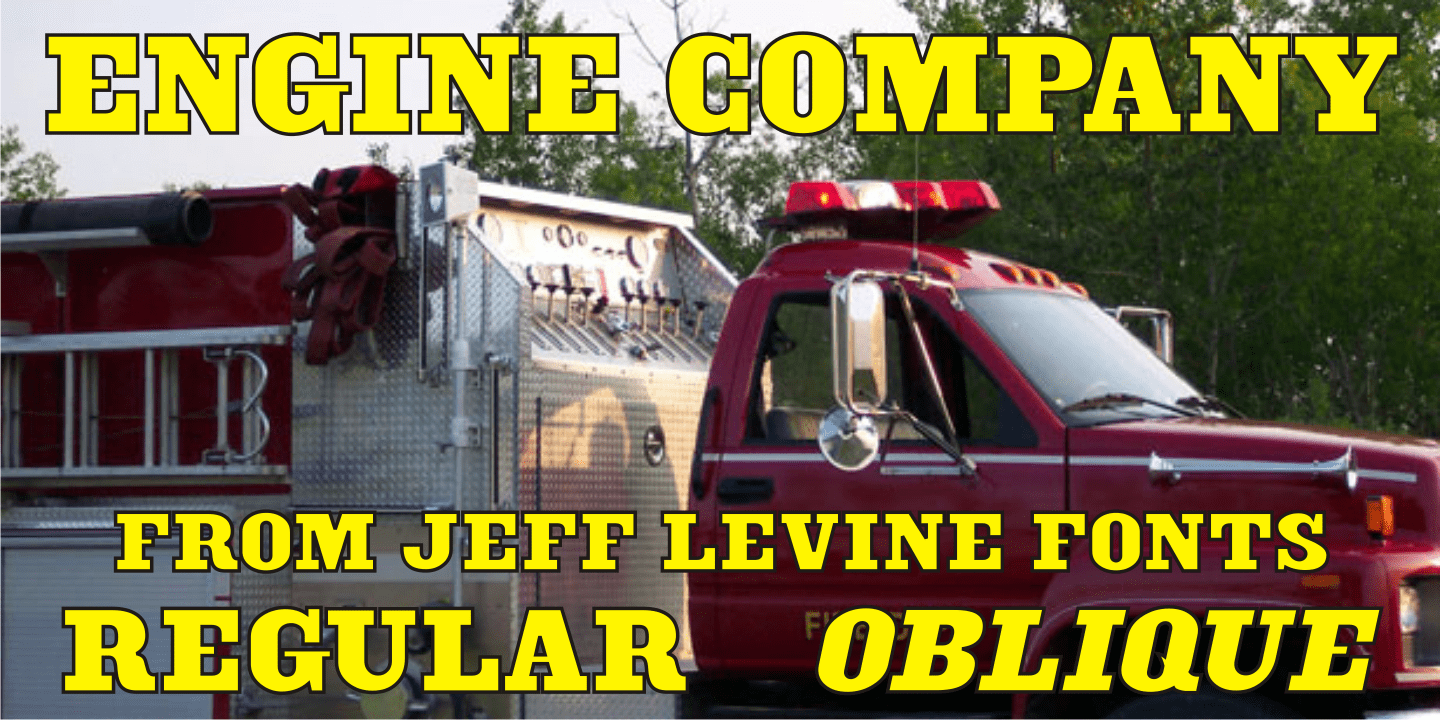
Engine Company
Engine Company JNL is a slab serif font based on a set of wood type. The design emits an image of strength and purpose, and fits well into any project where a word or phrase must be conveyed forcefully without seemed overly imposing.